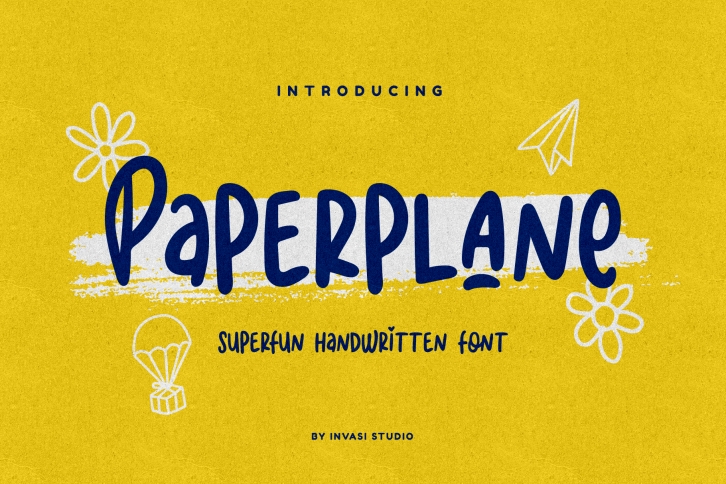
Paperplane is a cute and adaptable display font. No matter the topic, this font will be an incredible asset to your fonts’ library, as it has the potential to elevate any creation.Â